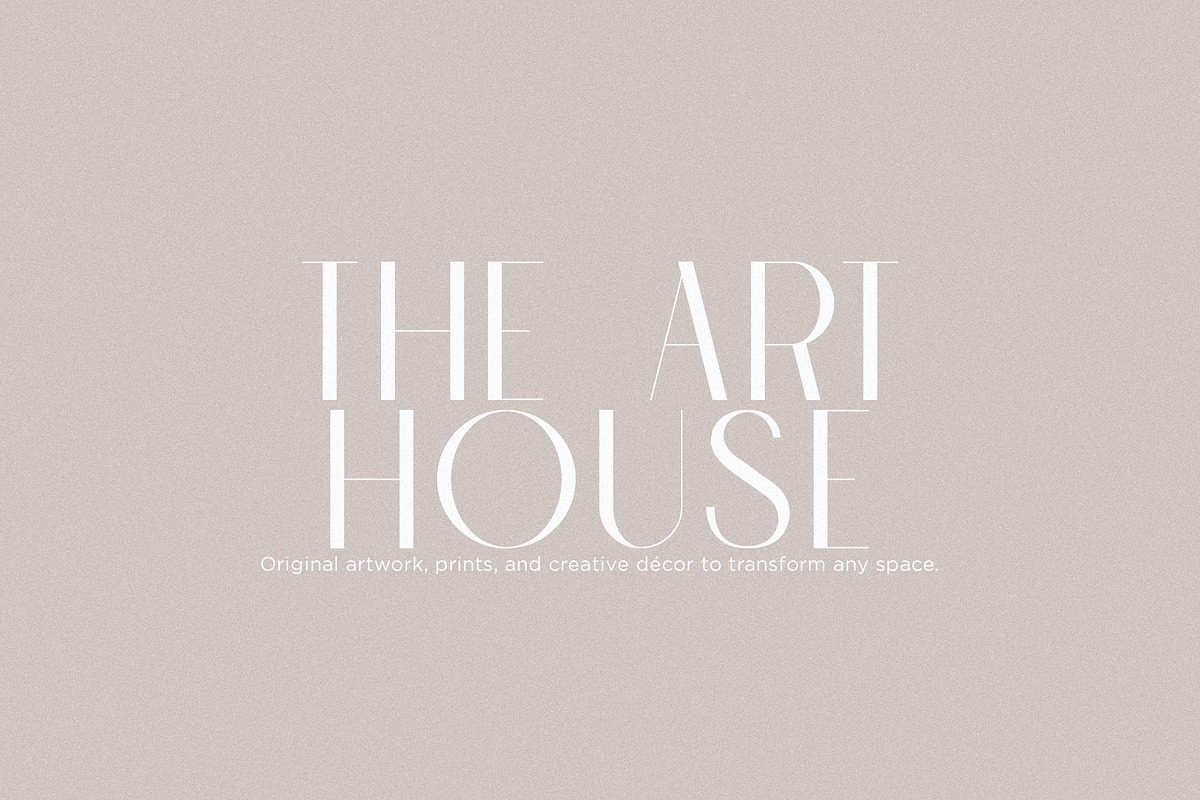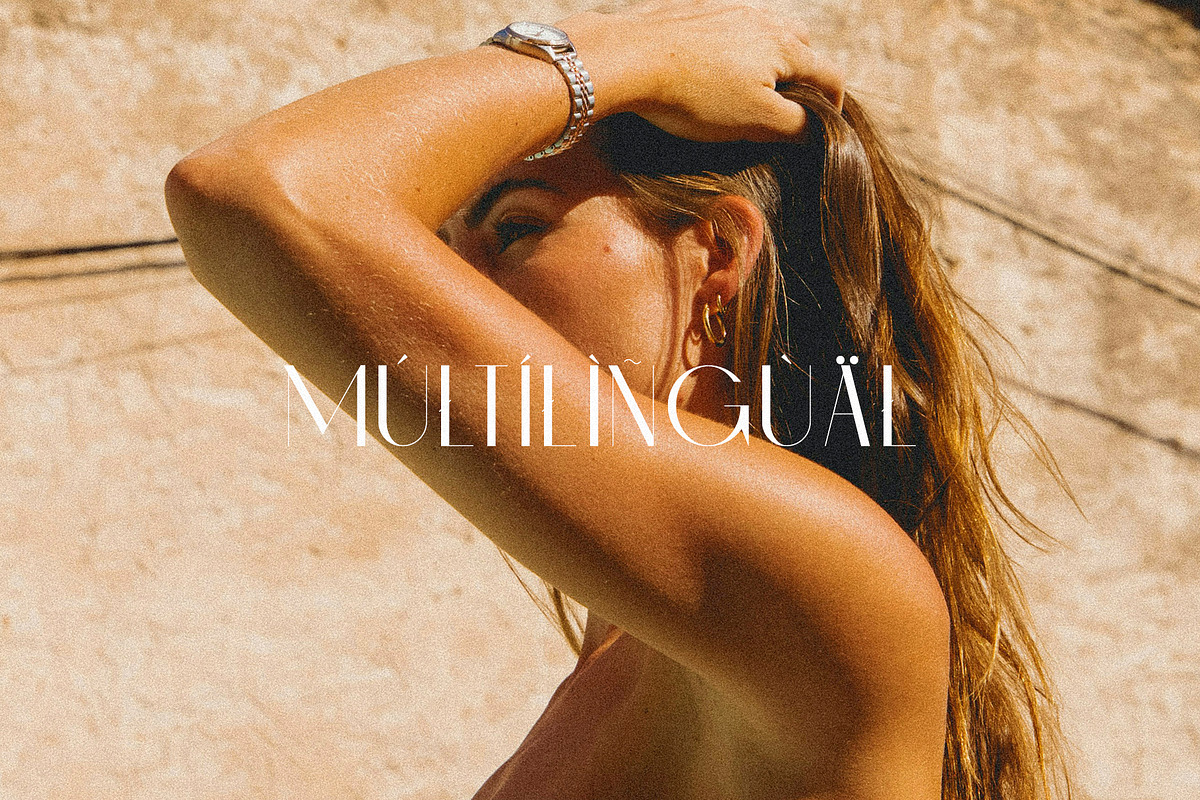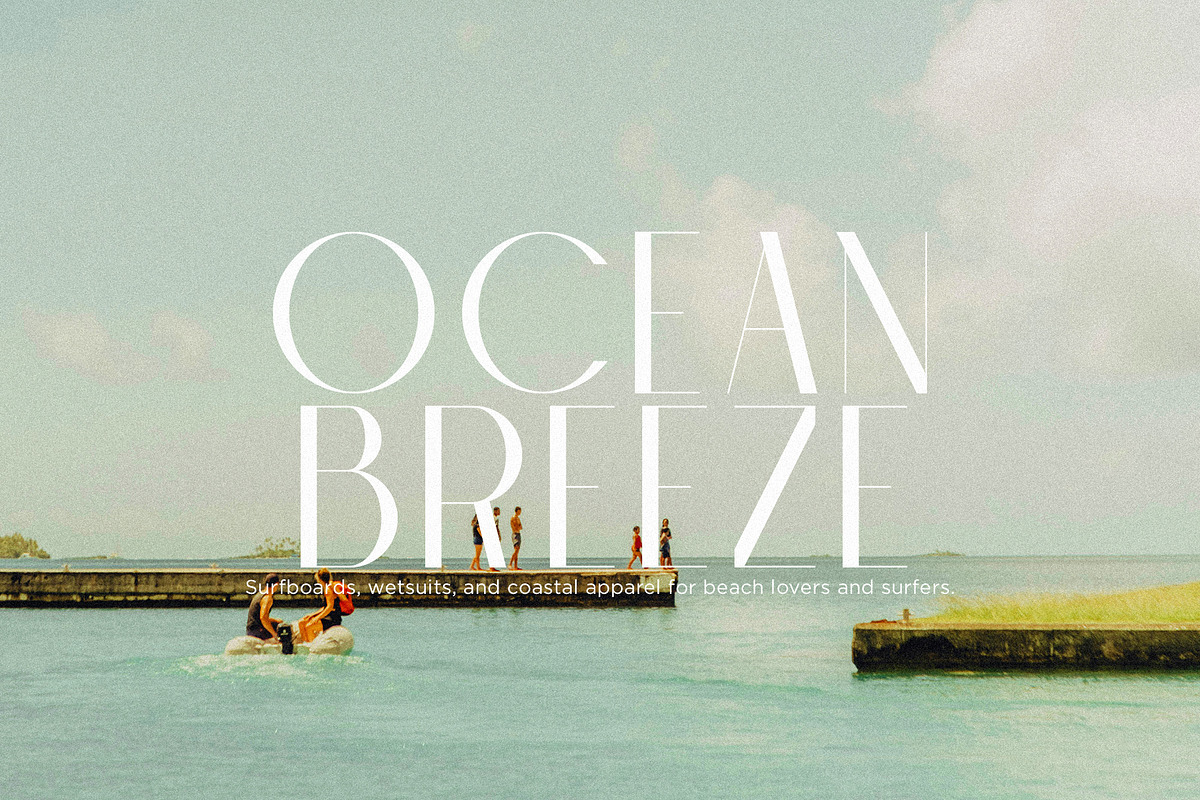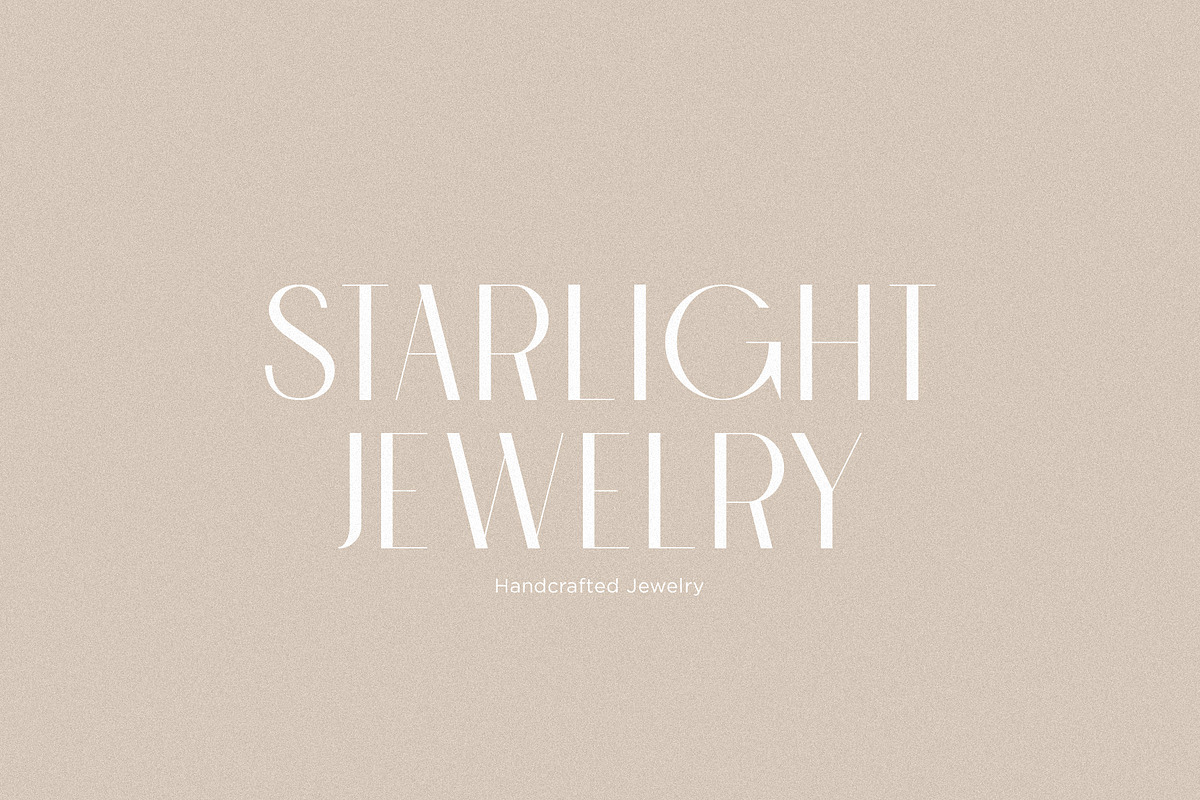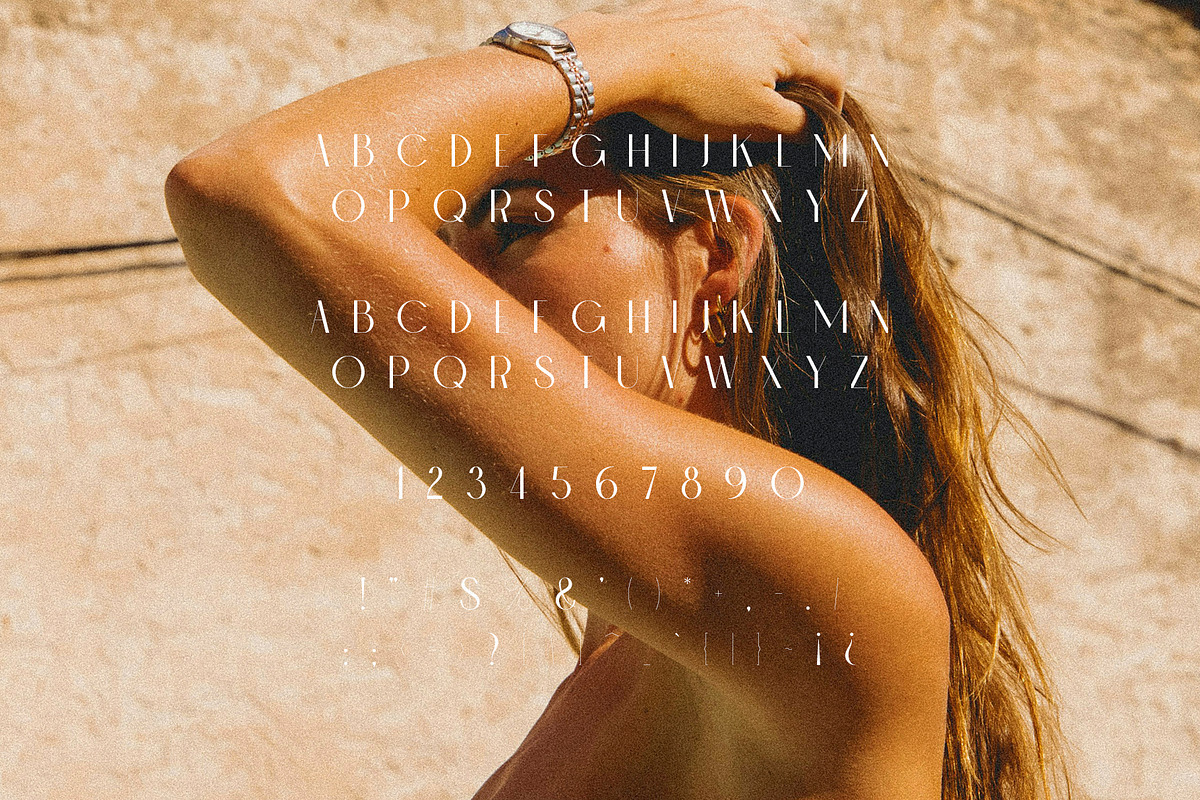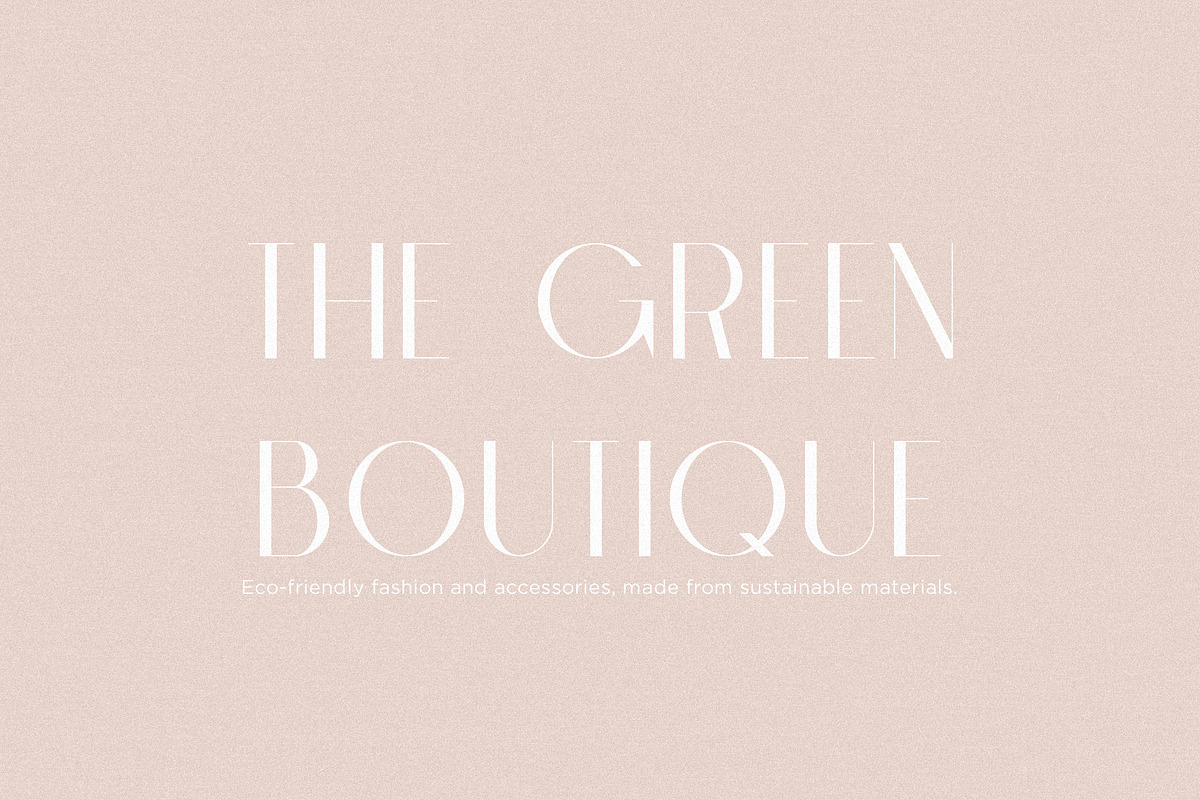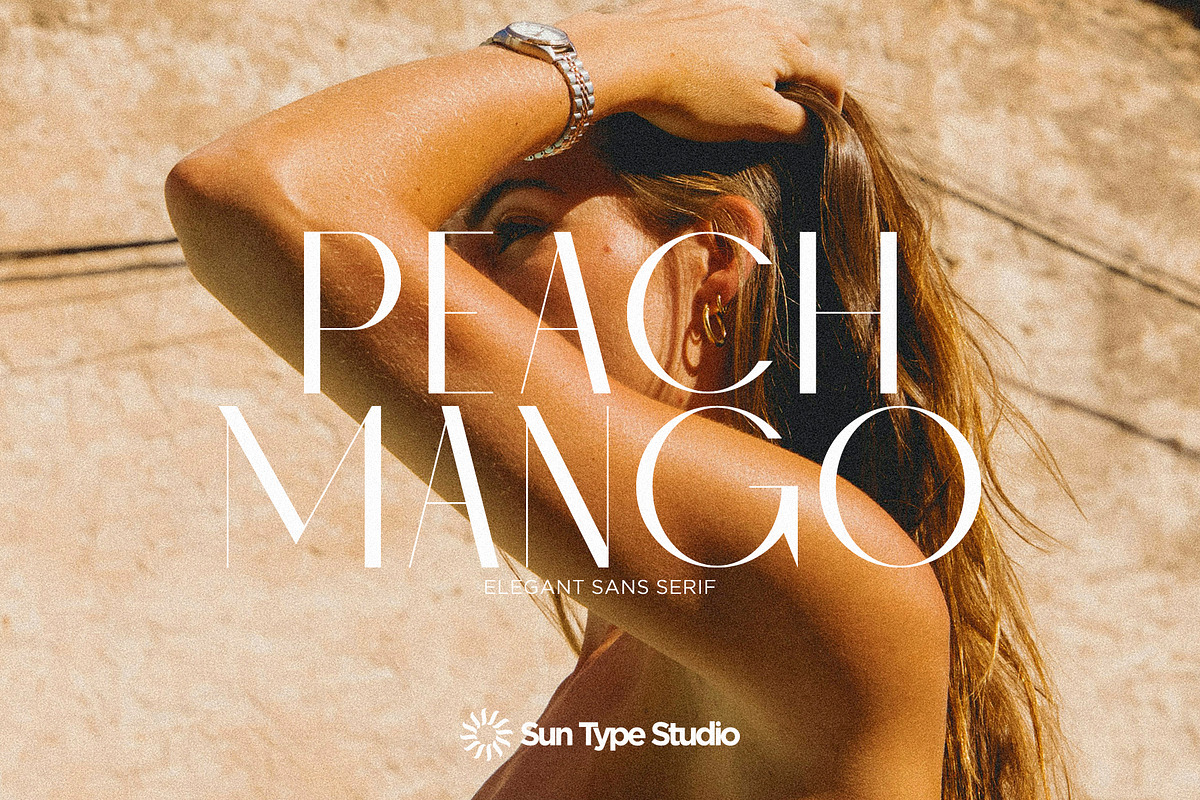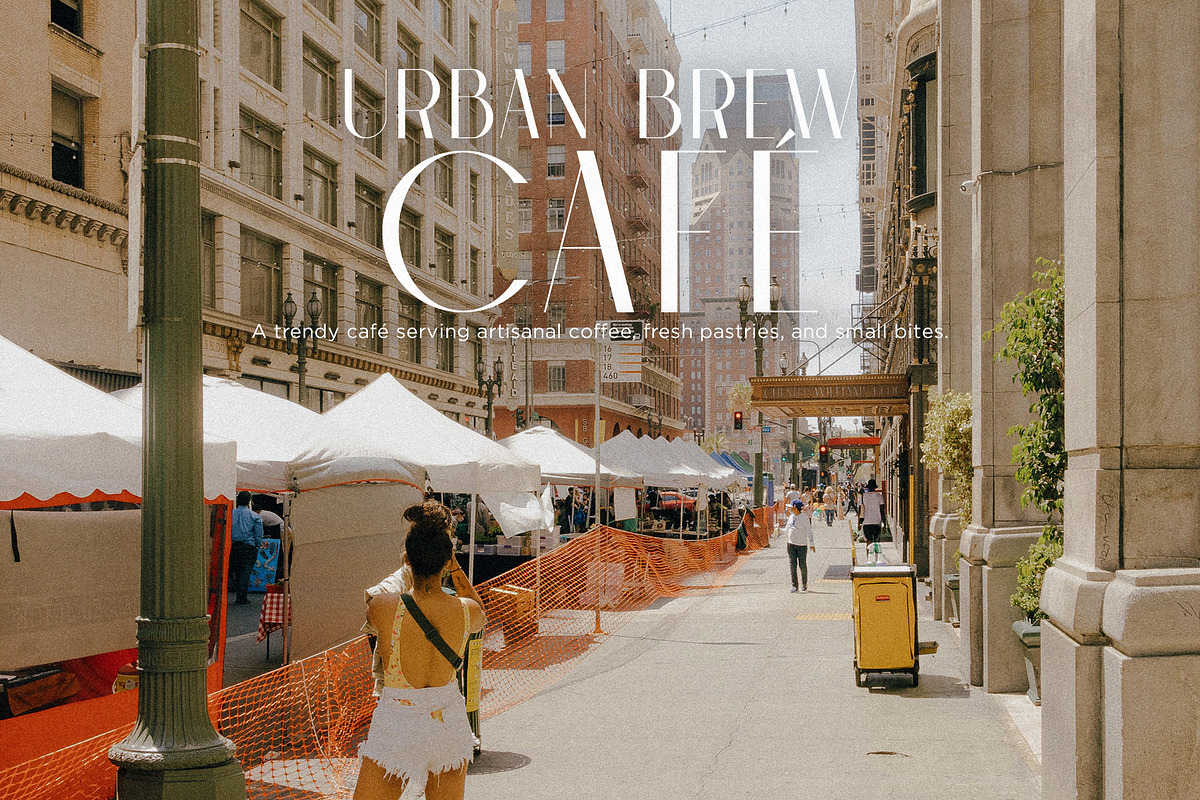
Peach Mango - Elegant Sans Serif
Peach Mango - Elegant Sans Serif is a refined and modern typeface that combines the simplicity of sans-serif design with a touch of sophistication. Its clean lines and balanced proportions make it highly versatile, perfect for both digital and print applications. Whether you're designing a website, branding materials, or elegant invitations, Peach Mango delivers a stylish, contemporary look with just the right amount of flair. The font's graceful curves and refined structure create a sense of clarity and professionalism while maintaining a warm, inviting feel. Ideal for creative projects that require a fresh, yet polished aesthetic.